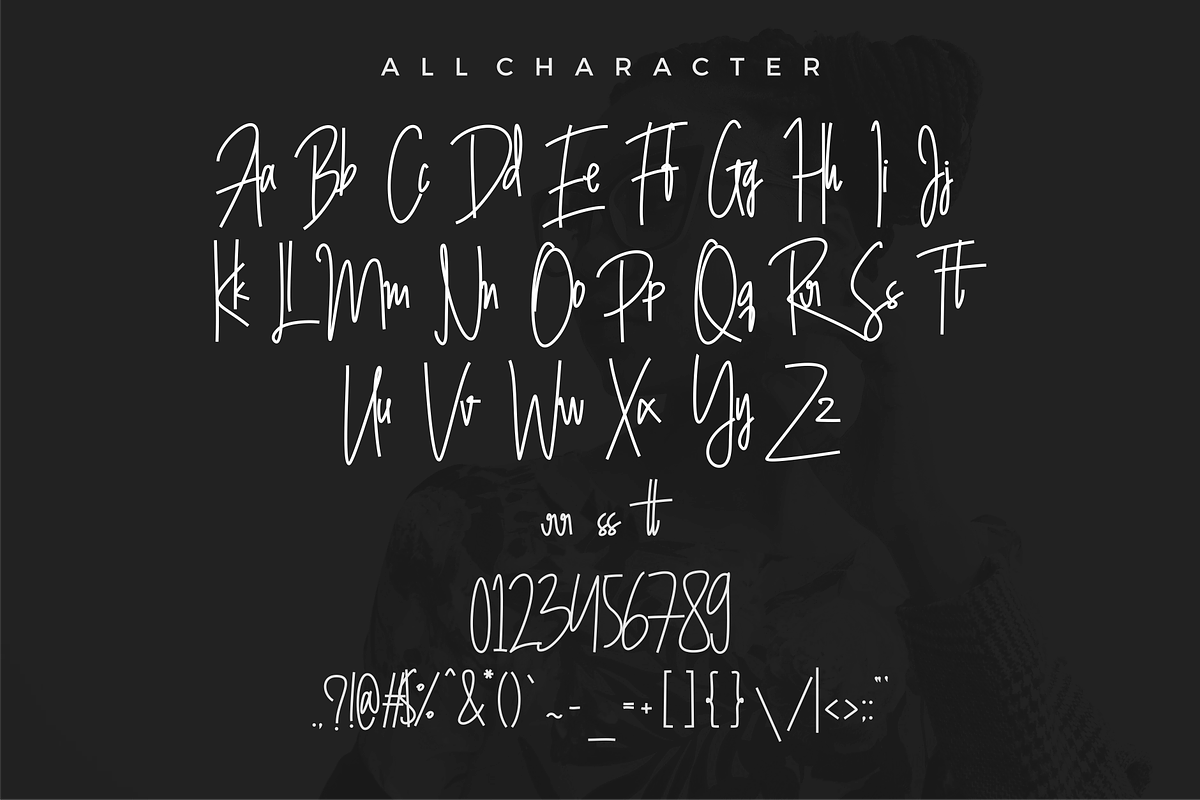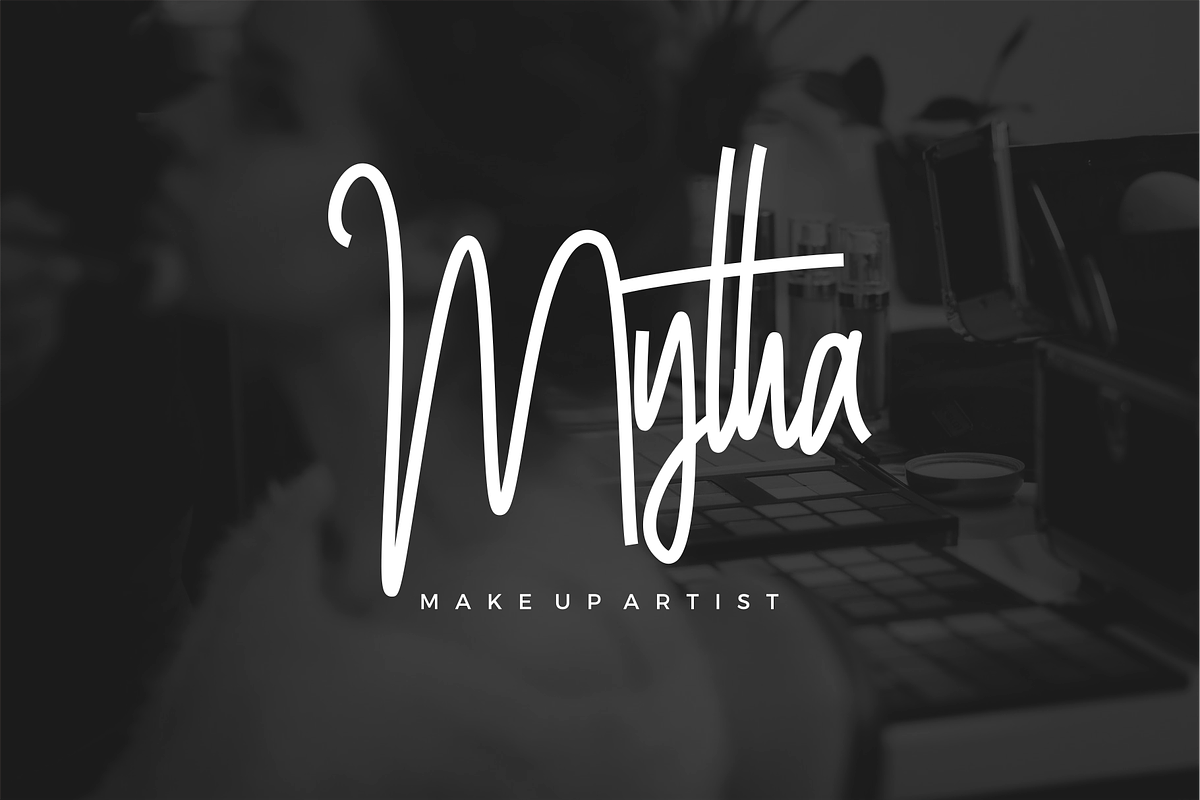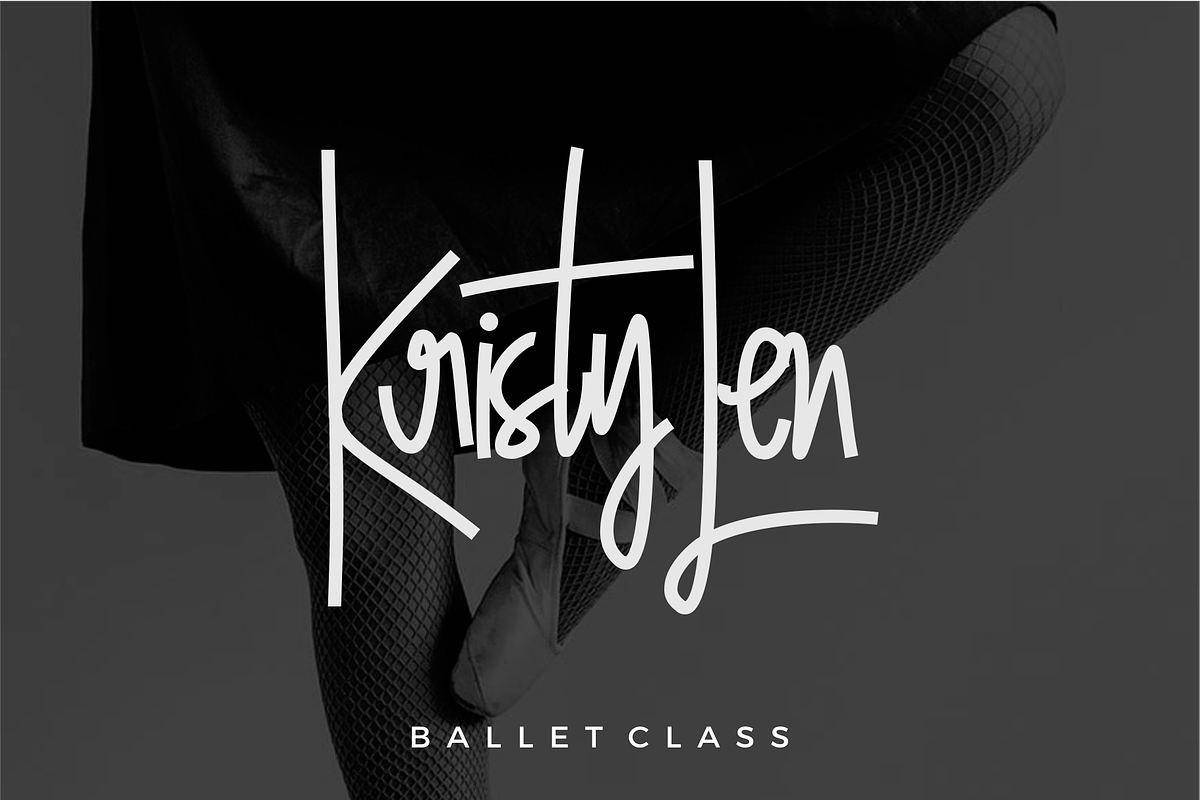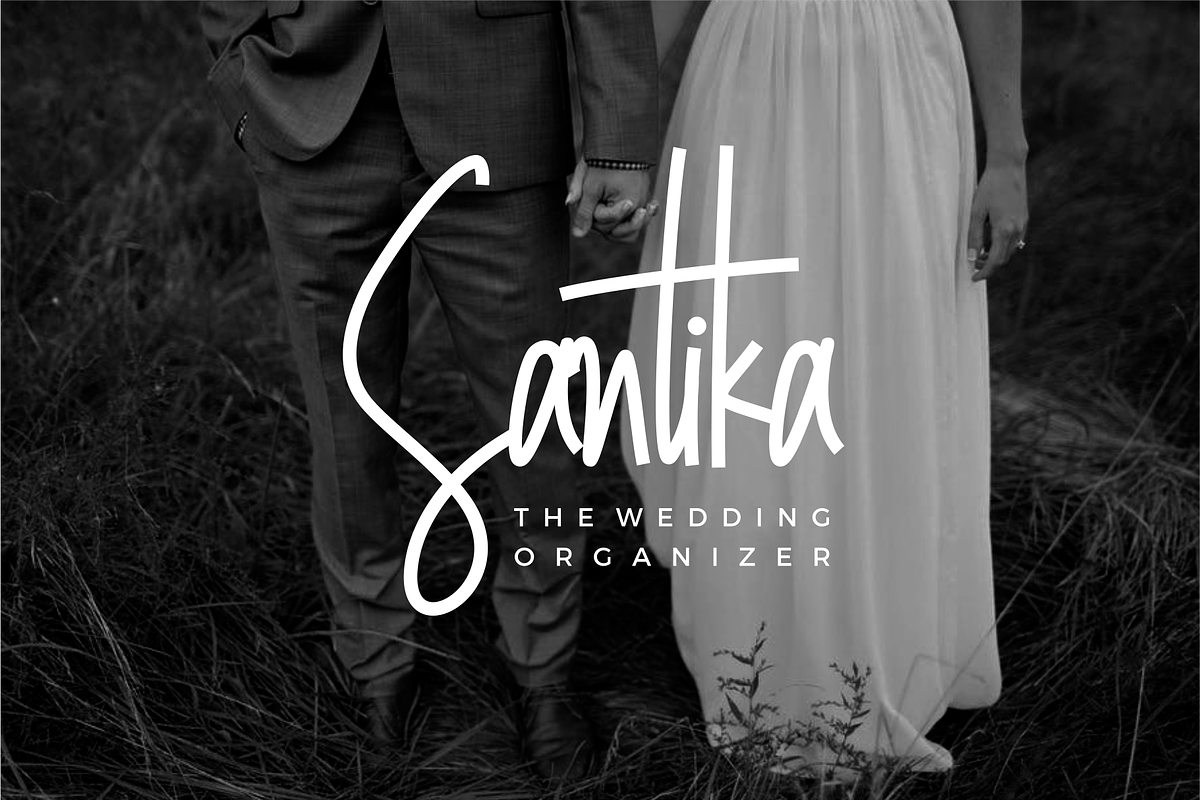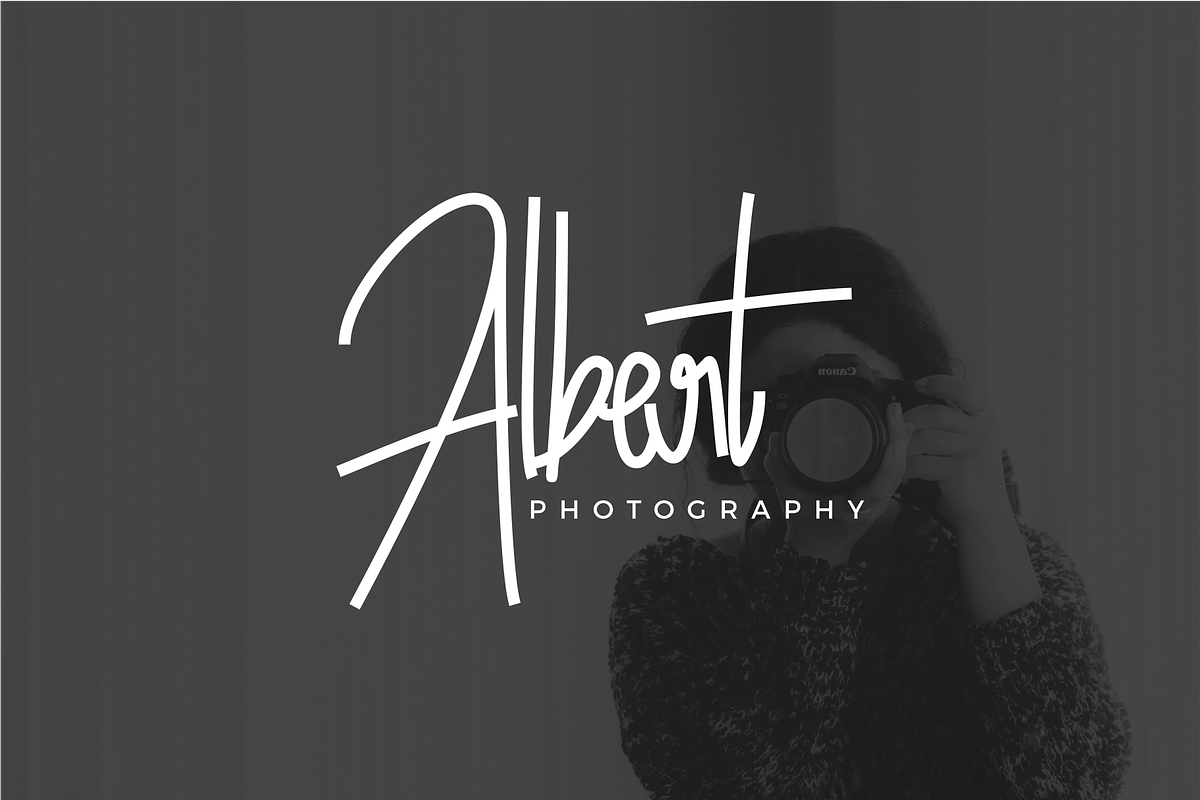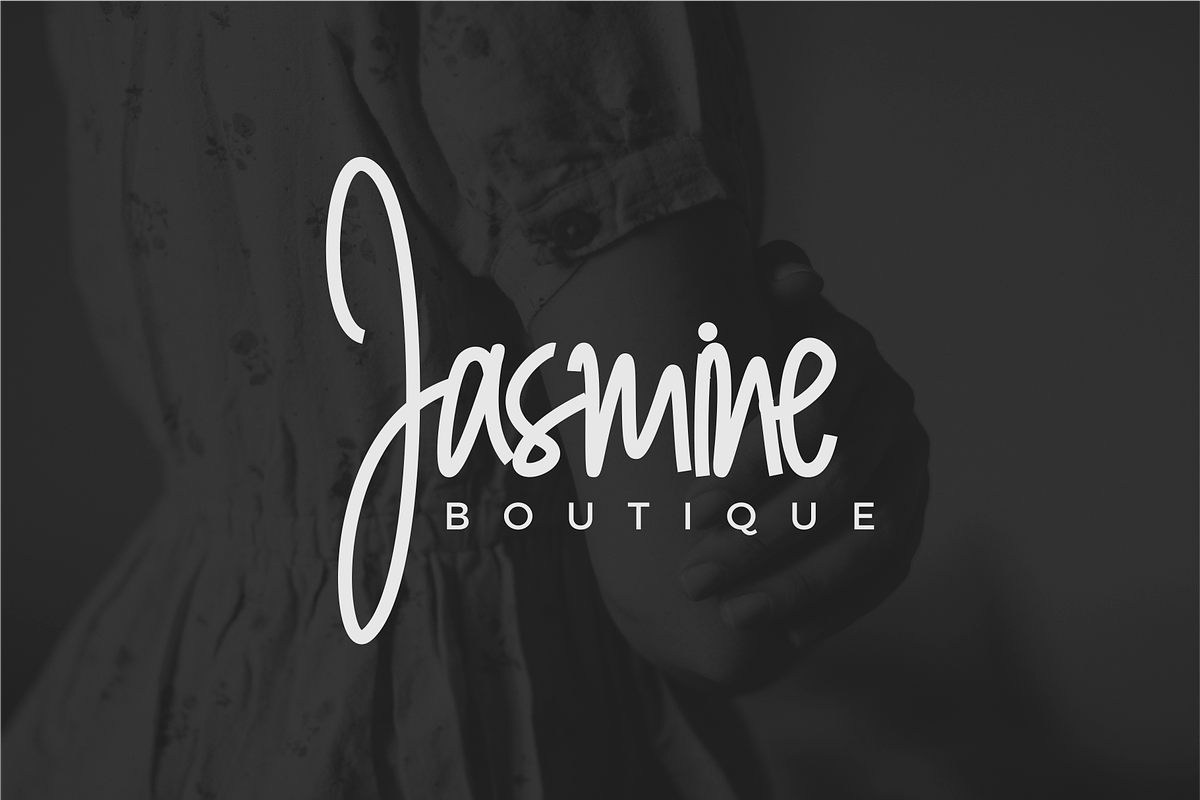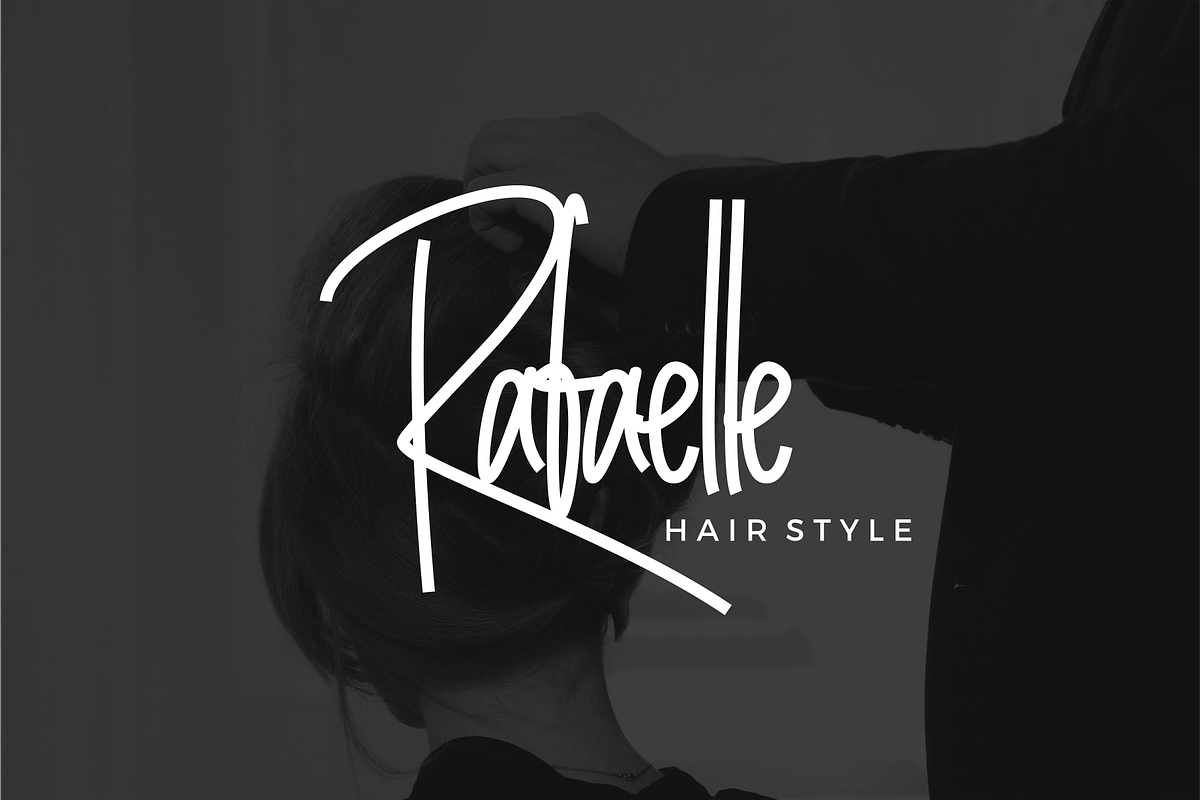
Ashytha Signature Font
Give your designs an authentic handcrafted feel. Ashyta is perfectly suited to signature, stationery, logo, typography quotes, magazine or book cover, website header, clothing, branding, packaging design and more.
Why Ashytha Signature Font is worth a look
Ashytha Signature Font by 24Design Studios fits naturally into Branding, posters, packaging, typography.